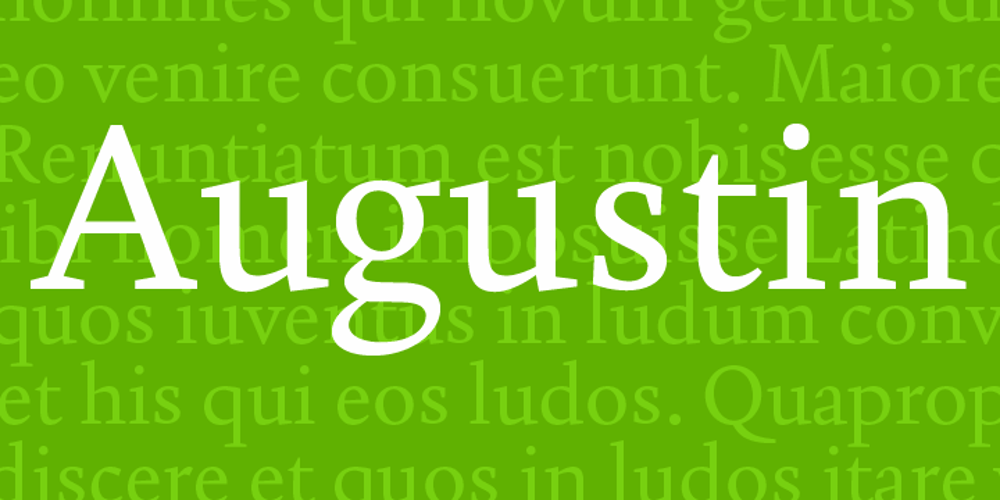
Augustin
Augustin font
Augustin Font Family was designed by Ludwig Übele and published by Ludwig Type. Augustin contains 6 styles and family package options. Augustin is an elegant and legible typeface inspired by the classic letter forms of the renaissance, namely the type of Nicolas Jenson made in Venice in 1470. The style-linked family includes oldstyle and lining figures both tabular and proportional.